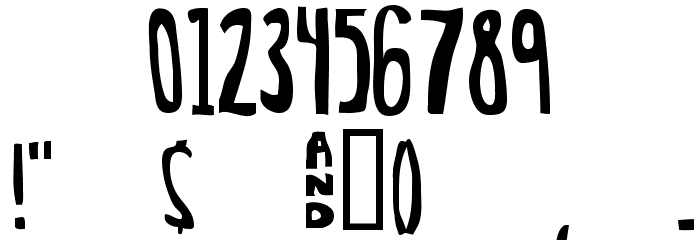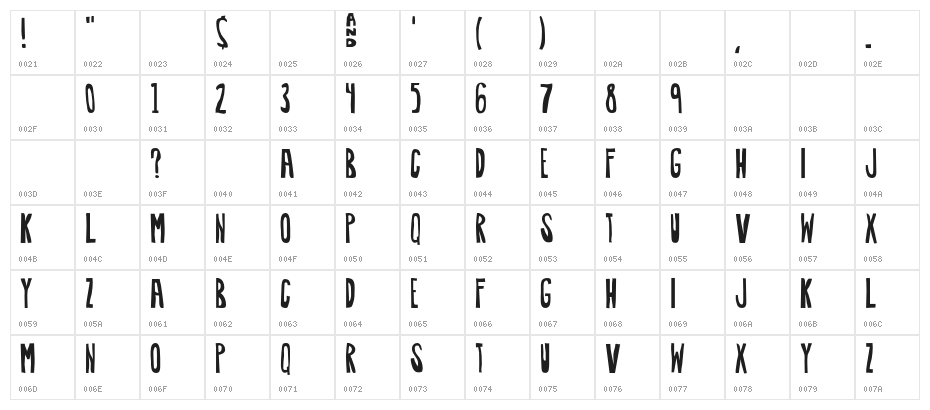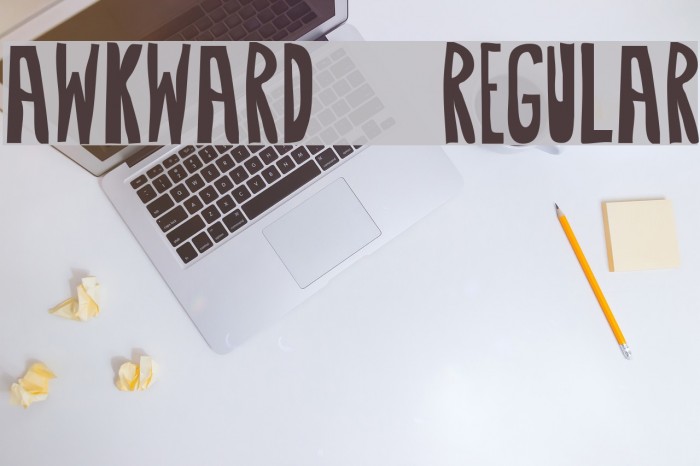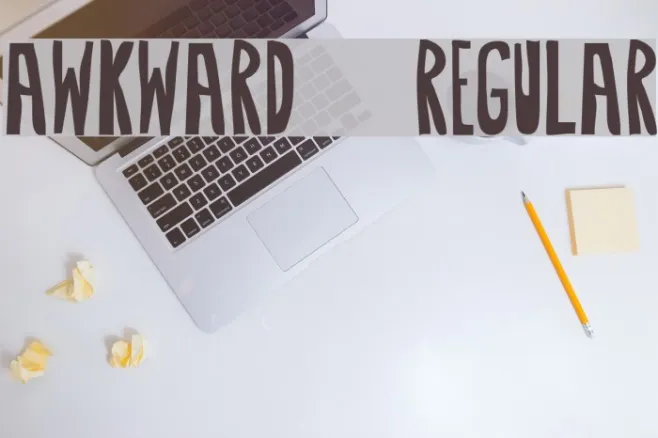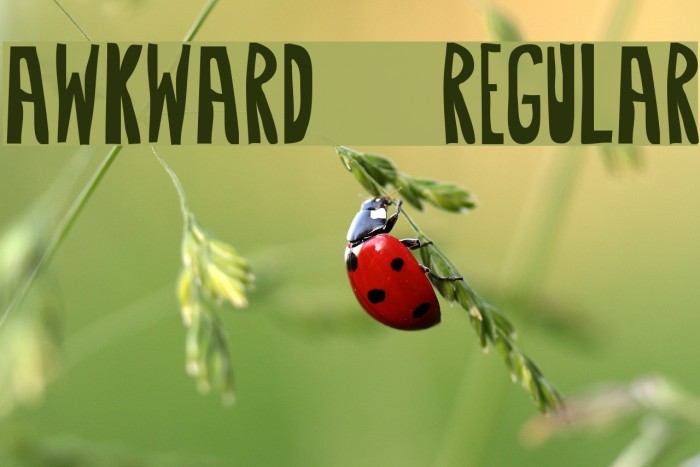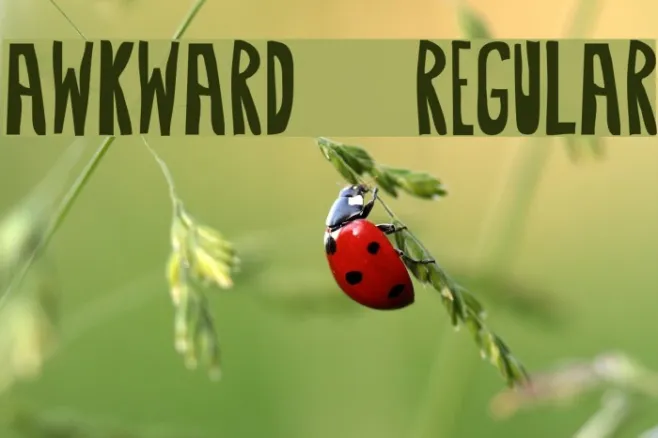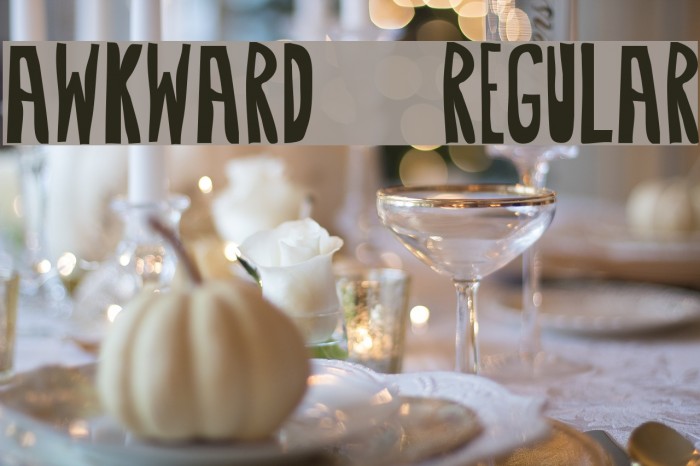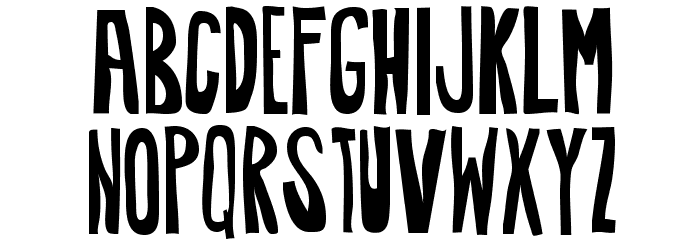
Awkward-Regular Font
Awkward-Regular Description
This font features a playful and quirky design with tall, narrow letters that have a hand-drawn appearance. The characters exhibit a slightly uneven baseline, adding to the whimsical and informal style. The strokes are bold and consistent, with a slight variation in thickness that gives the font a dynamic and lively feel. The uppercase and lowercase letters maintain a cohesive look, while the numerals and special characters complement the overall aesthetic. This font is ideal for projects that require a fun and engaging visual impact.
| Proposed Projects | Perfect for children's books, playful branding, casual invitations, and creative posters. |